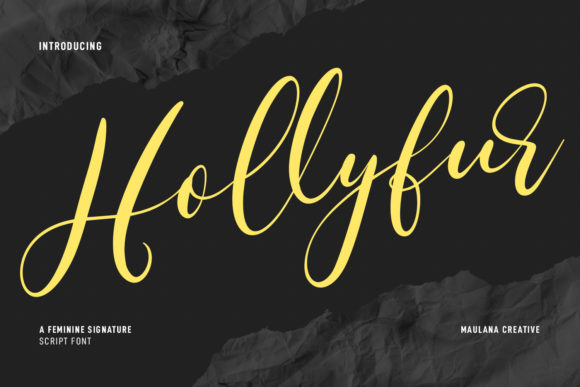
Prepare yourself to be captivated by Hollyfur Script Font, a masterpiece crafted by Maulana Creative, a name synonymous with artistic brilliance. Hollyfur is not merely a font; it's an experience, an artistic journey that will transform your creative visions into tangible realities.
Immerse yourself in the world of Hollyfur, a cursive script font that dances across the page with grace and elegance. Its high-contrast strokes, reminiscent of a skilled calligrapher's hand, lend a touch of sophistication that will elevate your designs to new heights.
With Hollyfur, you'll discover a treasure trove of creative possibilities. Its playful characters, adorned with ligatures and alternates, invite you to explore endless combinations, pushing the boundaries of your imagination. Unleash your creativity and craft logos that exude timeless charm, social media posts that captivate your audience, movie titles that ignite curiosity, book titles that beckon readers, and text that flows effortlessly from your fingertips.
Hollyfur is more than just a font; it's a versatile tool that adapts seamlessly to a myriad of design projects. Whether you seek to create stunning wedding invitations, heartfelt greeting cards, or captivating marketing materials, Hollyfur will effortlessly elevate your work, leaving a lasting impression on all who behold it.
Experience the allure of Hollyfur today and embark on a creative adventure that will redefine your artistic horizons. Let your imagination soar as you create captivating designs that resonate with beauty, elegance, and timeless charm. Embrace the power of Hollyfur and unlock the boundless possibilities that await you.